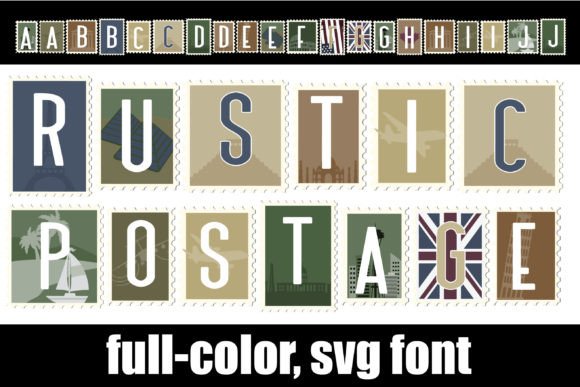
Indulge in the captivating allure of Rustic Postage Font, a chromatic masterpiece designed to transport your designs to exotic destinations. Immerse yourself in a symphony of colors, as this full-color font dances across your screen, evoking the spirit of adventure and untamed exploration.
With its palette inspired by nature's wonders and military precision, Rustic Postage Font captures the essence of wanderlust, inviting you to embark on a visual odyssey. Its camouflaged print adds an intriguing touch of mystery, beckoning you to discover hidden depths within your designs.
Unleash the vibrancy of Rustic Postage Font and witness the transformation of your designs. From logos that radiate with personality to intricate illustrations that captivate the imagination, this font knows no bounds. Its versatility extends to web design and print, inviting you to weave tales of adventure across diverse media.
Embrace the scalability of Rustic Postage Font and revel in the crisp, high-quality resolution that remains unwavering regardless of the size of your project. Let your imagination soar as you craft designs that transcend boundaries, leaving an indelible mark on the hearts of your audience.
Harness the power of Rustic Postage Font and unlock a world of creative possibilities. Its ease of use makes it accessible to designers of all skill levels, empowering you to infuse your designs with a touch of wanderlust. Join the ranks of those captivated by the allure of Rustic Postage Font and embark on a journey of visual storytelling like never before.